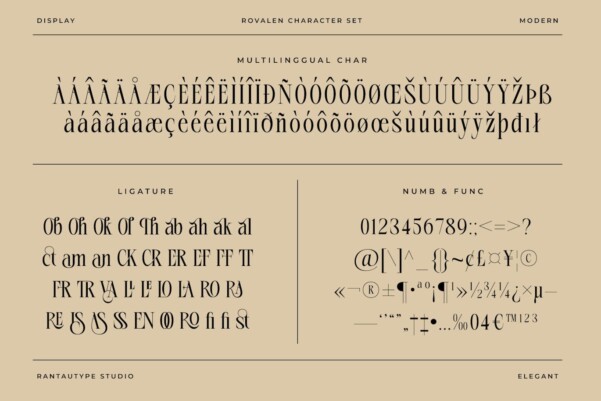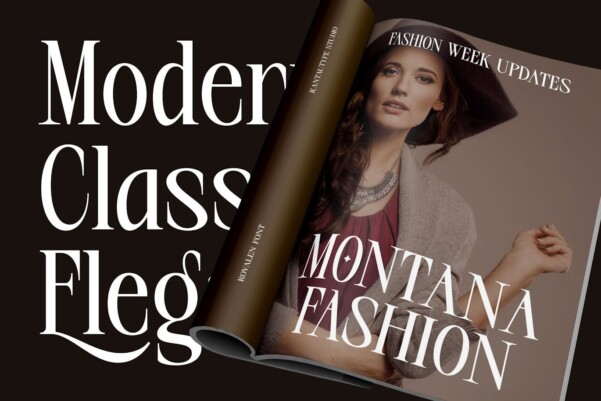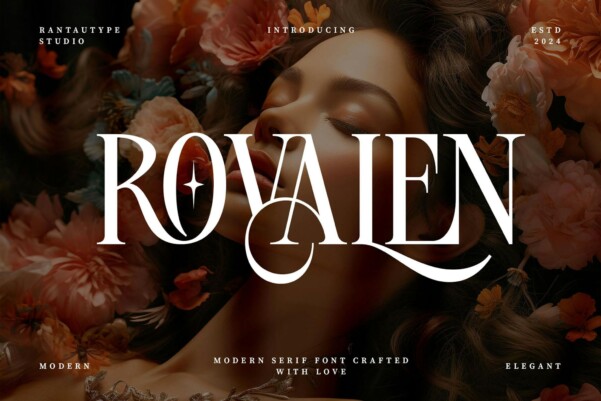
Rovalen Font
Designer: RantautypeStudio
Rovalen Font is a modern Serif typeface with an elegant and chic ligature. We love how the ligature connects with other shapes to create a different character, taking inspiration from fashion trends and big brands.
Rovalen is a perfect choice for any creative, chic and lifestyle design, like logos, advertisements, watermarks on photography, stationery, branding projects, displays and magazines, invitations, brands corporate, product design, labels, commercial projects and many other projects with a touch of elegance.